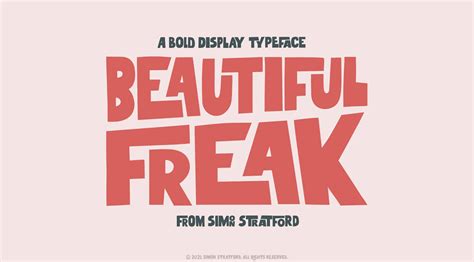
Beautiful Freak Font. Uppercase glyphs only (this font is unicase) punctuation, symbols and numbers. Web beautiful freak font a modern bold, quirky display font with a fun, trendy street style vibe.
Web beautiful freak font a modern bold, quirky display font with a fun, trendy street style vibe. Web beautiful freak font includes; Uppercase glyphs only (this font is unicase) punctuation, symbols and numbers.
Web beautiful freak font includes; Web beautiful freak font a modern bold, quirky display font with a fun, trendy street style vibe. Web beautiful freak font includes; Uppercase glyphs only (this font is unicase) punctuation, symbols and numbers.